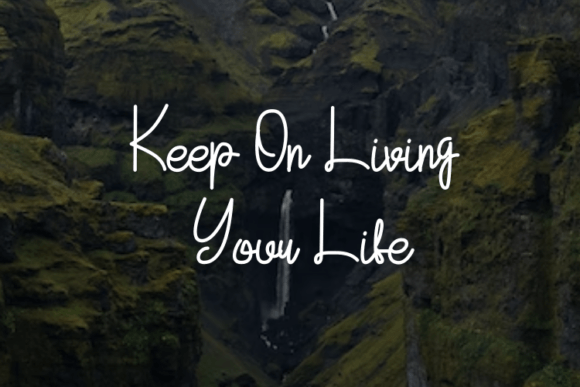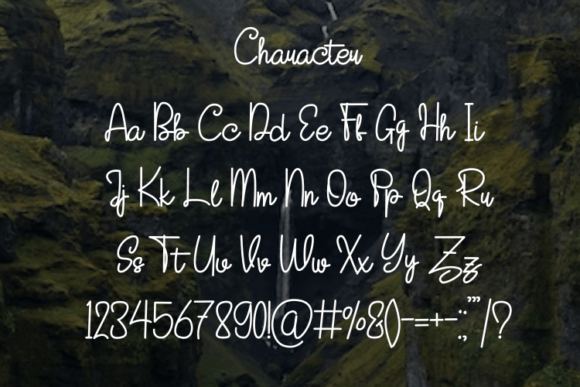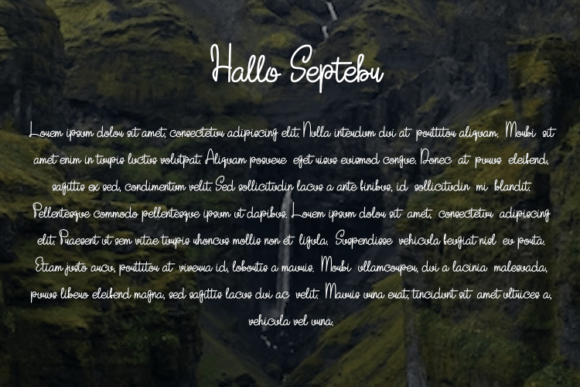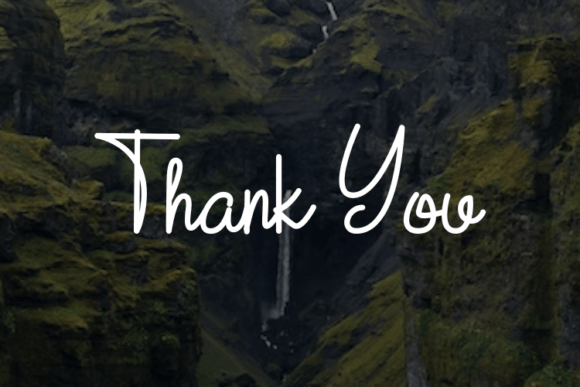
Introduction to Hallo Septebr Font
As a designer, there’s nothing quite like the thrill of bringing a creative project to life. The moment when all the elements come together, and your vision starts to take shape – it’s pure magic. For those of us who live and breathe design, every new font is an opportunity to elevate our work and make it truly unforgettable. And that’s exactly what the Hallo Septebr Font does – it adds a touch of elegance and sophistication to any project, making it stand out from the crowd.
With its simple yet modern style, the Hallo Septebr Font is the perfect choice for designers who want to create high-quality designs that exude luxury and refinement. Whether you’re working on a logo, book or movie title, fashion brand, magazine, or clothing design, this font is sure to impress. And the best part? It’s available for free download, making it an invaluable resource for designers of all levels.
Key Features of Hallo Septebr Font
- Unique, modern design perfect for creative projects requiring a touch of elegance and sophistication.
- High-quality font with transparent background, ideal for designers working on complex design resources.
- Designed to be highly legible and versatile, making it an excellent choice for various creative projects.
Honest Review: Hallo Septebr Font
I recently had the chance to experiment with the Hallo Septebr Font, and I must say it’s been a pleasant surprise. The moment I opened the font, I was struck by its quirky, yet elegant aesthetic. It’s perfect for adding a touch of whimsy to creative projects.
- Unique design that’s sure to stand out ✨
- High quality, clear and crisp letterforms ✨
- Transparent background, allowing for seamless integration with other design elements ✨
However, there are a few limitations I’ve encountered:
- Some characters may appear a bit pixelated when scaled up ⚠️
- The font may not be suitable for formal or professional projects ⚠️
Overall, I’m thoroughly enjoying working with the Hallo Septebr Font. Its playful design and high quality make it an excellent choice for creative projects, and the free download is a definite bonus. If you’re looking for a fun and quirky font to add some personality to your designs, I highly recommend giving Hallo Septebr Font a try.
Tips for Getting the Most Out of Hallo Septebr Font
Hallo Septebr Font is perfect for designing social media graphics, blog posts, and advertisements. Its versatility and high-quality design make it an excellent choice for any creative project requiring a unique and eye-catching font.